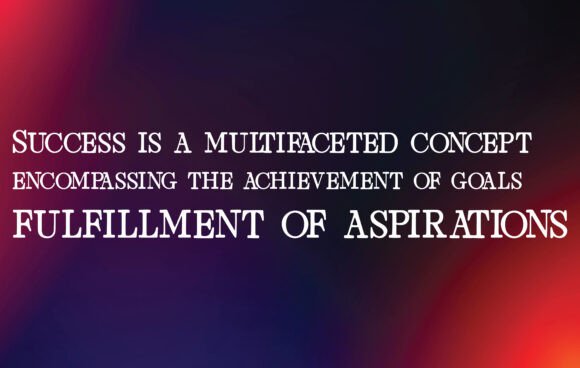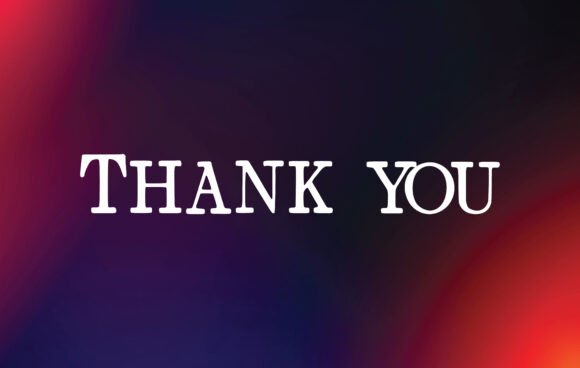
Introducing Bugloss Font: Elevate Your Creative Projects with Style and Versatility
In the world of typography, finding the perfect font that combines style, readability, and versatility can be a daunting task. However, if you’re on the hunt for a typeface that can effortlessly elevate your creative projects, look no further than Bugloss Font. This beautifully crafted font is designed to become a staple in your collection, offering a unique blend of aesthetics and functionality that suits a wide range of design needs.
Aesthetic Appeal and Readability
Bugloss Font boasts an elegant and clean design that makes it incredibly easy to read. This characteristic makes it an excellent choice for both titles and body text, providing a seamless reading experience for your audience. The font’s aesthetic appeal lies in its balanced and harmonious design elements, ensuring that your text looks visually appealing and professional.
One of the standout features of Bugloss Font is its incredible versatility. Whether you’re working on a high-end magazine, designing t-shirts, creating engaging social media posts, crafting branding materials, or preparing wedding invitations and greeting cards, this font fits perfectly into any project. Its adaptability makes it a valuable asset for designers and crafters who work on a variety of projects.
Bugloss Font is not just another typeface; it’s a tool that can transform your creative projects. For designers, it offers a professional and modern look that can elevate the visual appeal of any design. For crafters, it provides a means to add a personal touch to handmade projects, making them stand out. The font’s ease of use and flexibility make it accessible to both seasoned professionals and hobbyists.
The applications of Bugloss Font are endless. Imagine creating stunning magazine headlines that grab attention, designing t-shirts with quotes that resonate with your audience, or crafting social media posts that stand out in a crowded feed. With Bugloss Font, you can also develop branding materials that reflect your brand’s personality, create beautiful wedding invitations that set the tone for the big day, or design greeting cards that feel personal and heartfelt.
Why Choose Bugloss Font?
- Readability: Its clear and clean design ensures that your text is easy to read, making it perfect for both digital and print projects.
- Versatility: Use it across a variety of projects, from professional designs to personal crafts.
- Aesthetic Appeal: Adds a touch of elegance and sophistication to your designs.
- Easy to Use: Seamlessly integrate it into your workflow, regardless of your design experience.
Bugloss Font is more than just a typeface; it’s a creative partner that can help you bring your ideas to life. With its perfect blend of style, readability, and versatility, it’s poised to become your go-to favorite in your collection. Whether you’re a designer looking to elevate your professional projects or a crafter seeking to add a personal touch to your creations, Bugloss Font offers the ideal solution. Explore the endless creative possibilities with Bugloss Font and discover how it can transform your approach to design.
Embark on your creative journey with Bugloss Font today and experience firsthand how this exceptional typeface can enhance your projects with its unique blend of style and functionality.